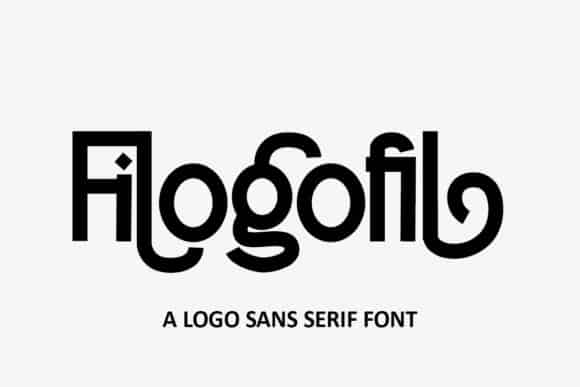
Filogofil Font
Filogofil Sans Serif Font, designed by Muksal Creative is a beautiful, elegant, clean and luxurious font with a few additional glyphs and ligatures This font is perfect for complementing your designs. Have fun with this beautiful font and explore its endless variations.